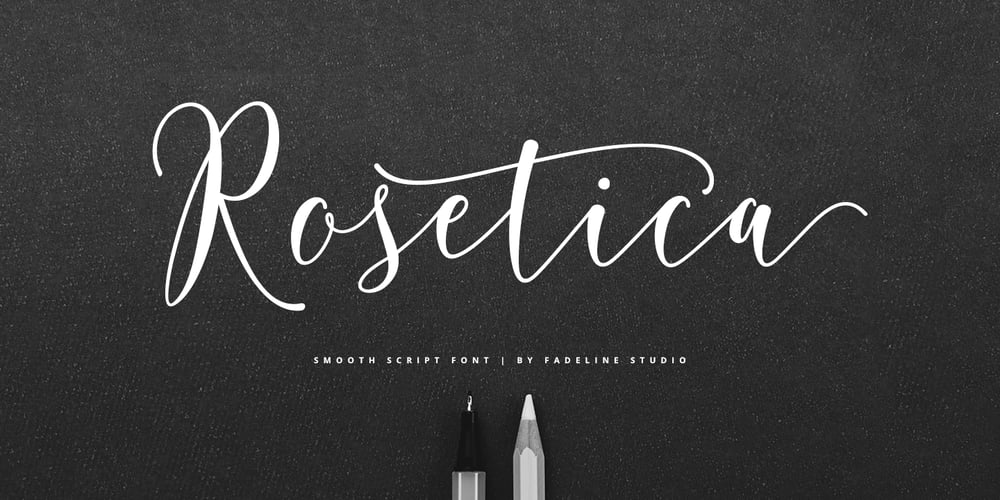
Rosetica
Rosetica font
Rosetica Font Family was designed by Juni Fadil Putra and published by FadeLine Studio. Rosetica contains 1 styles and family package options. Introducing Rosetica, a smooth, soft script font in handwriting style which gives the characters of this font a very simple, natural and sweet touch.Rosetica is perfect for logo’s, branding projects, homeware designs, product packaging, mugs, quotes, posters, shopping bags, logo’s, t-shirts, book covers, name card, invitation cards, greeting cards, and all your other lovely projects.